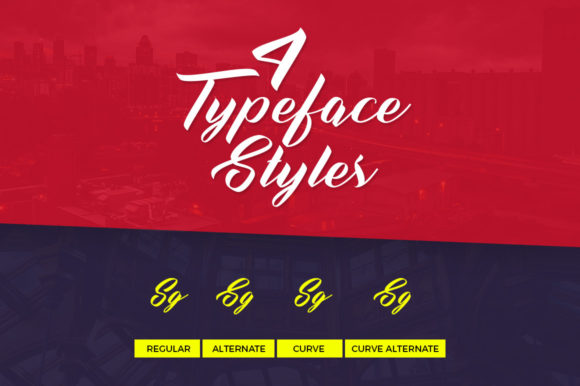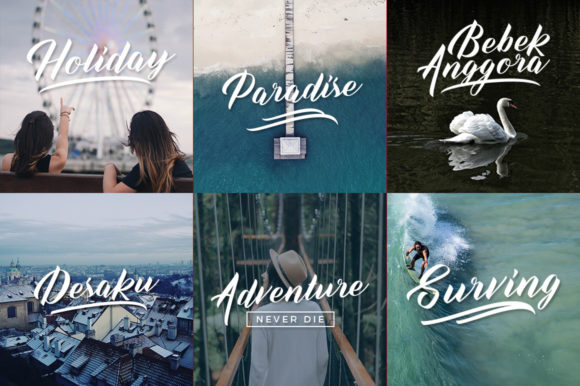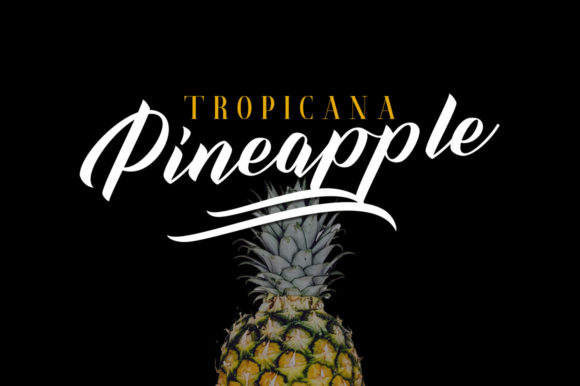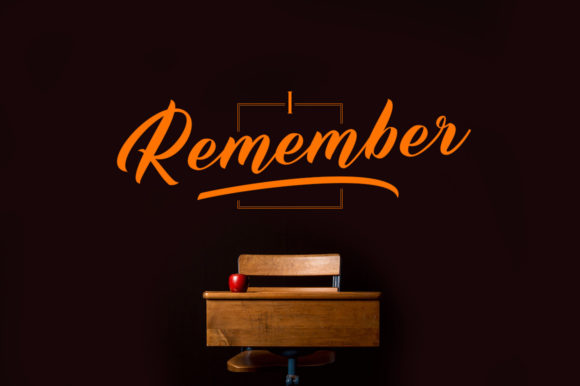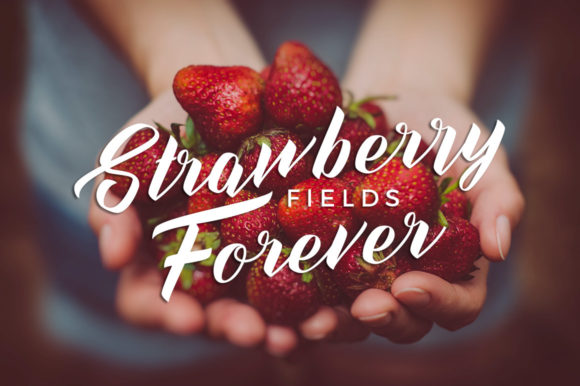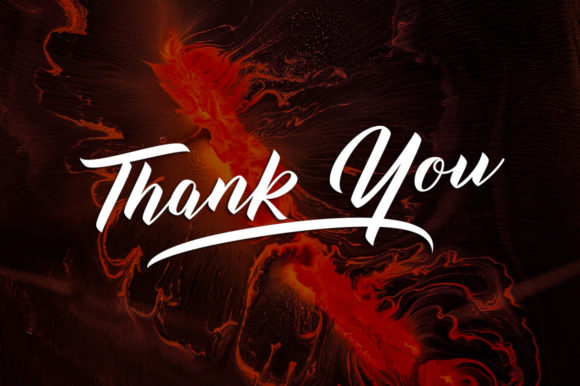
About BisQuid Font
BisQuid is a gorgeous script font, featuring a beautiful flow. It is suitable for vintage designs, branding, logos, product packaging, invitations, quotes, t-shirt, poster labels and more.